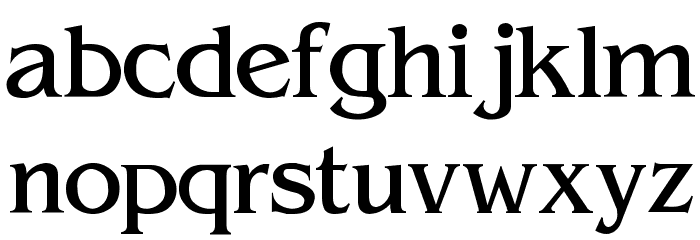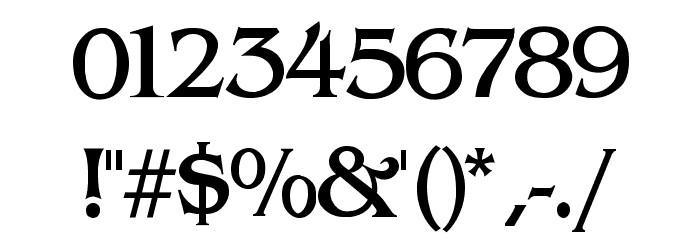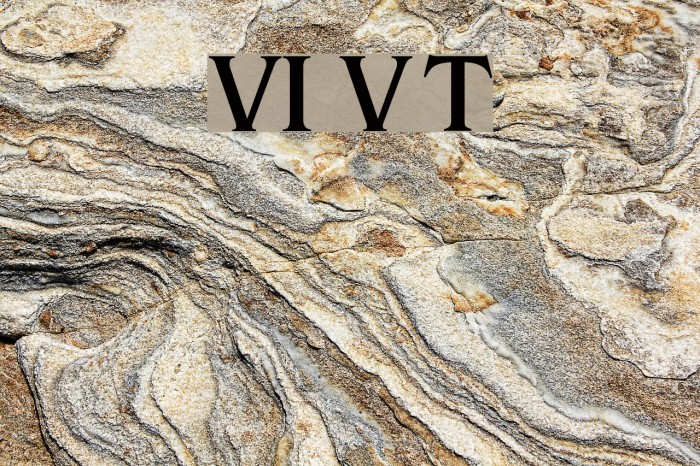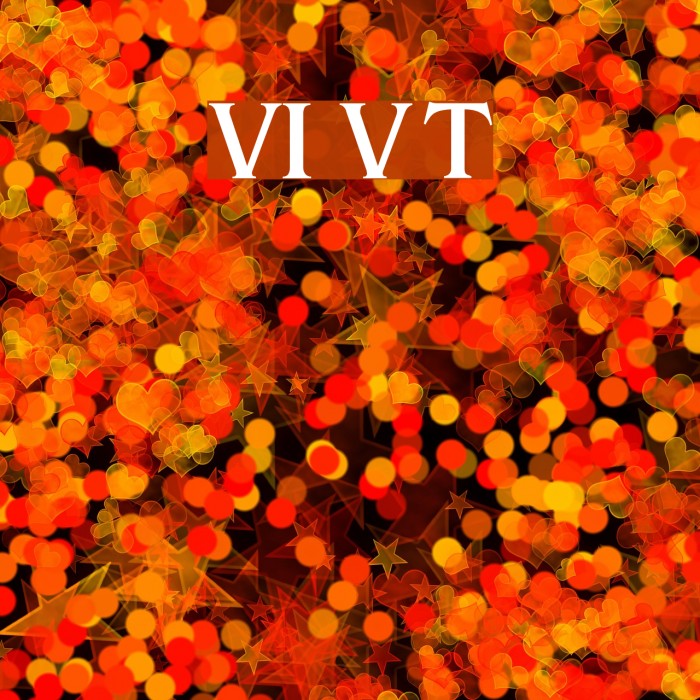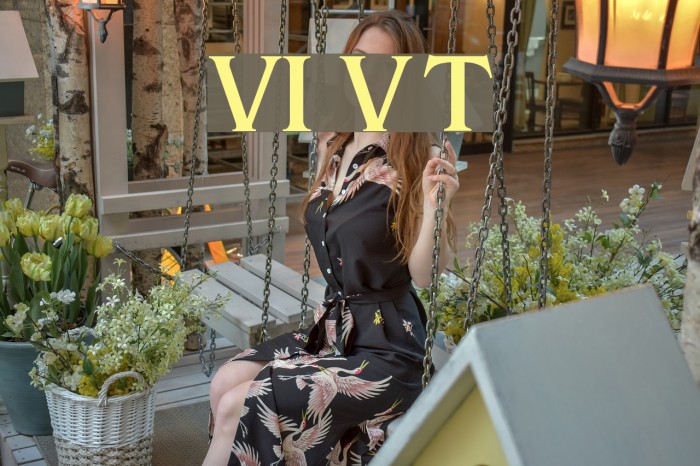
VI Van Tho Font
This font exhibits a classic serif style with elegant, flowing lines and a sophisticated appearance. The uppercase letters are bold and commanding, while the lowercase letters maintain a refined balance. The numerals are clear and distinct, complementing the overall design. Special characters are crafted with precision, adding to the font's versatility. The serifs are pronounced, enhancing readability and giving the typeface a timeless quality. This font is suitable for projects that require a touch of elegance and tradition.
A classic serif font with elegant lines and a sophisticated appearance.
- Proposed Projects: Ideal for book covers, formal invitations, branding for luxury products, and editorial design.
- Overall Style: Classic